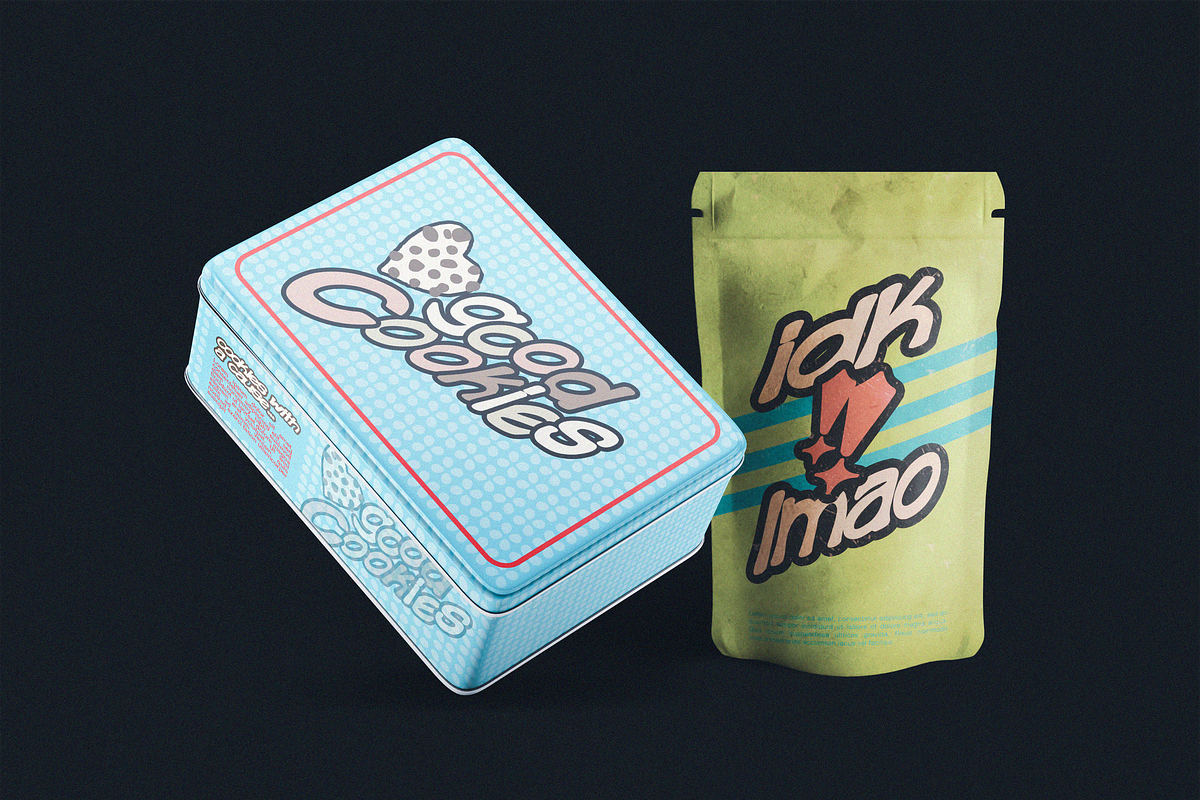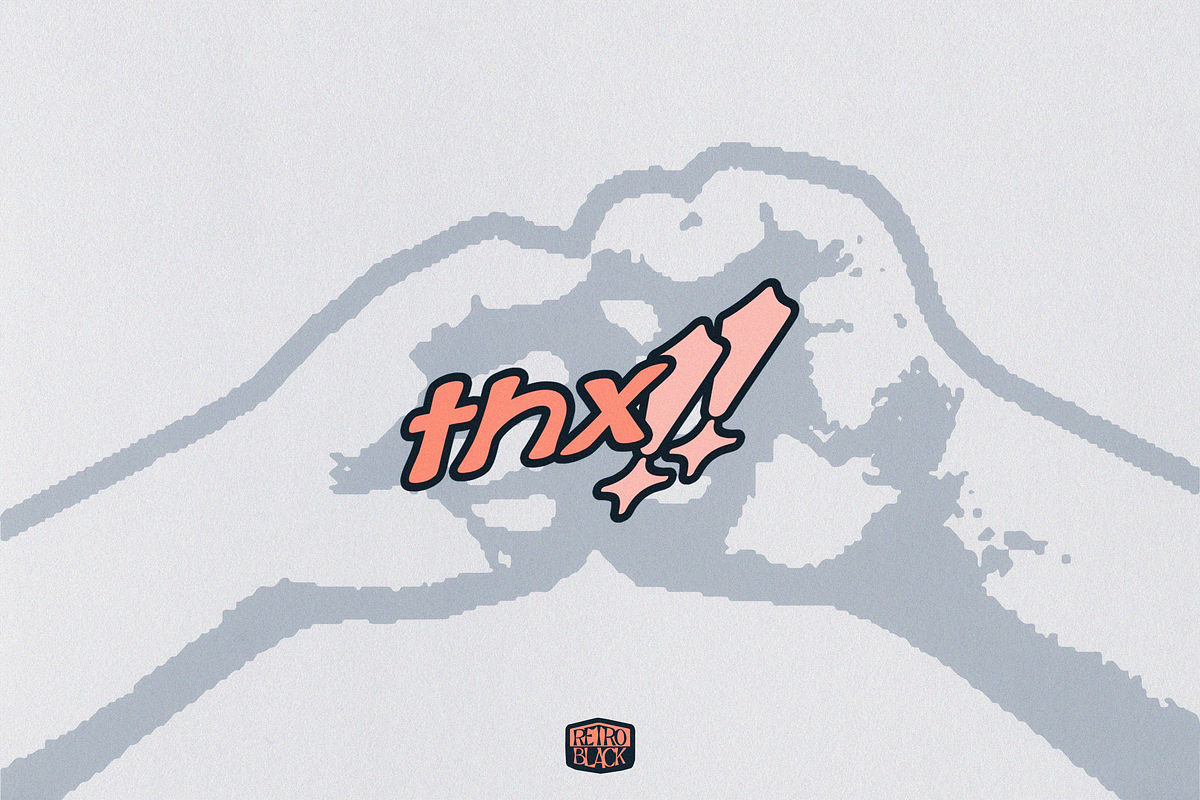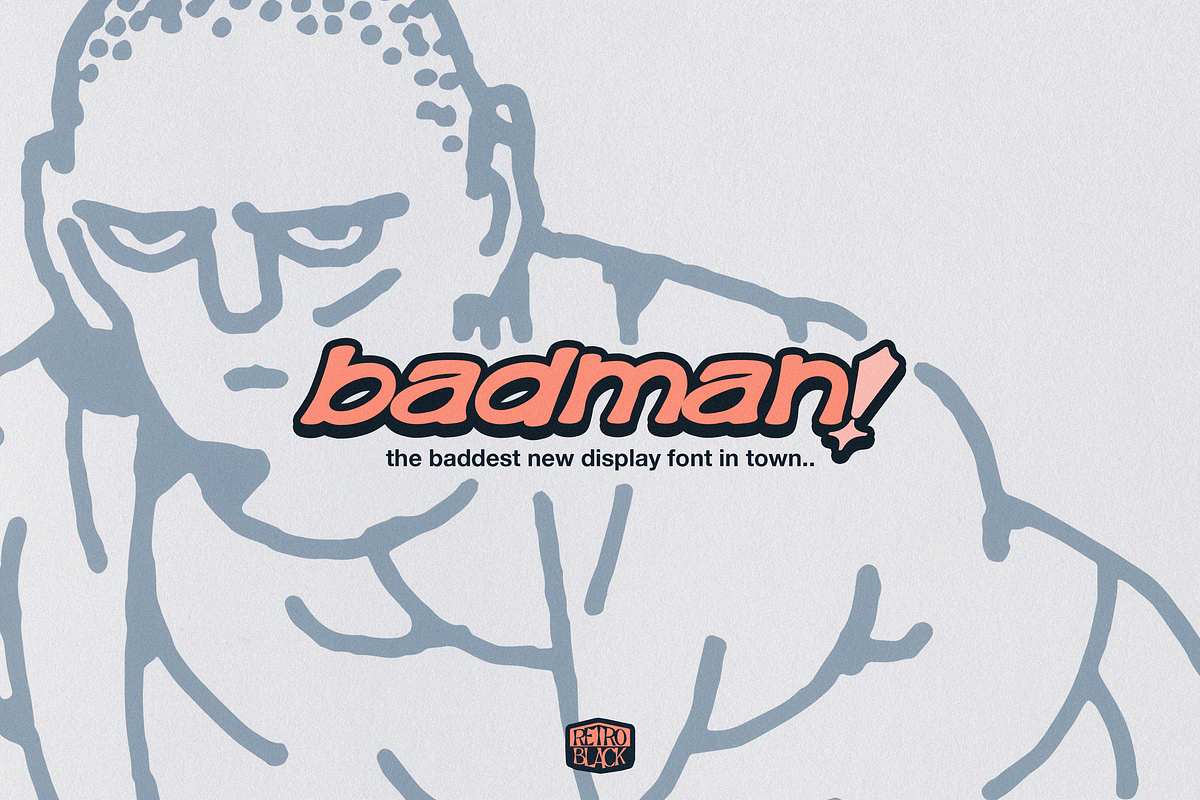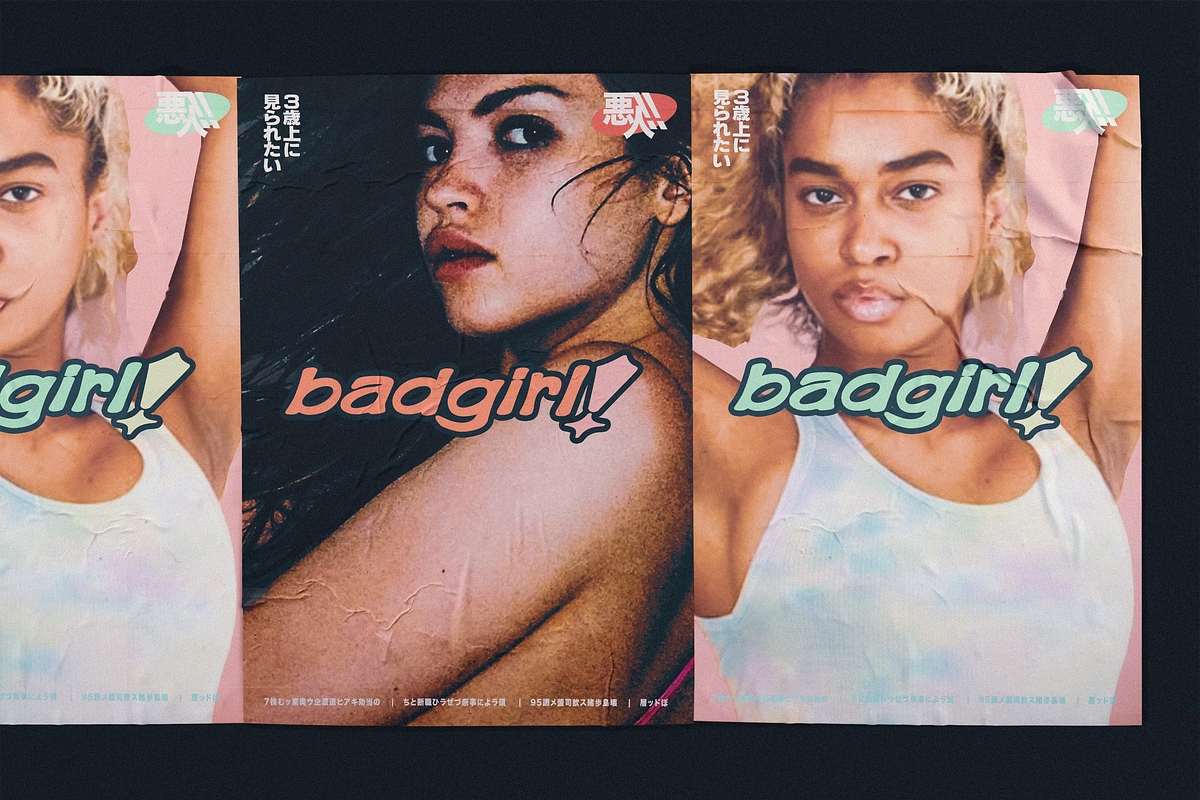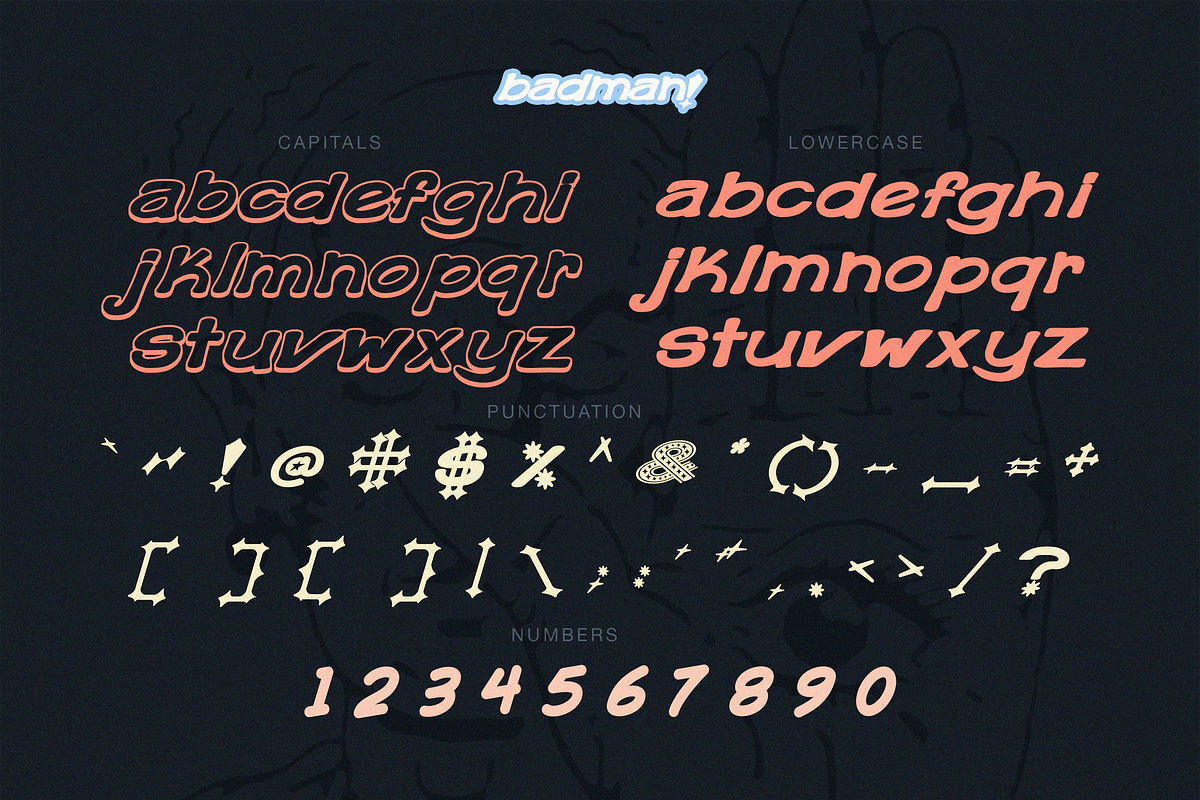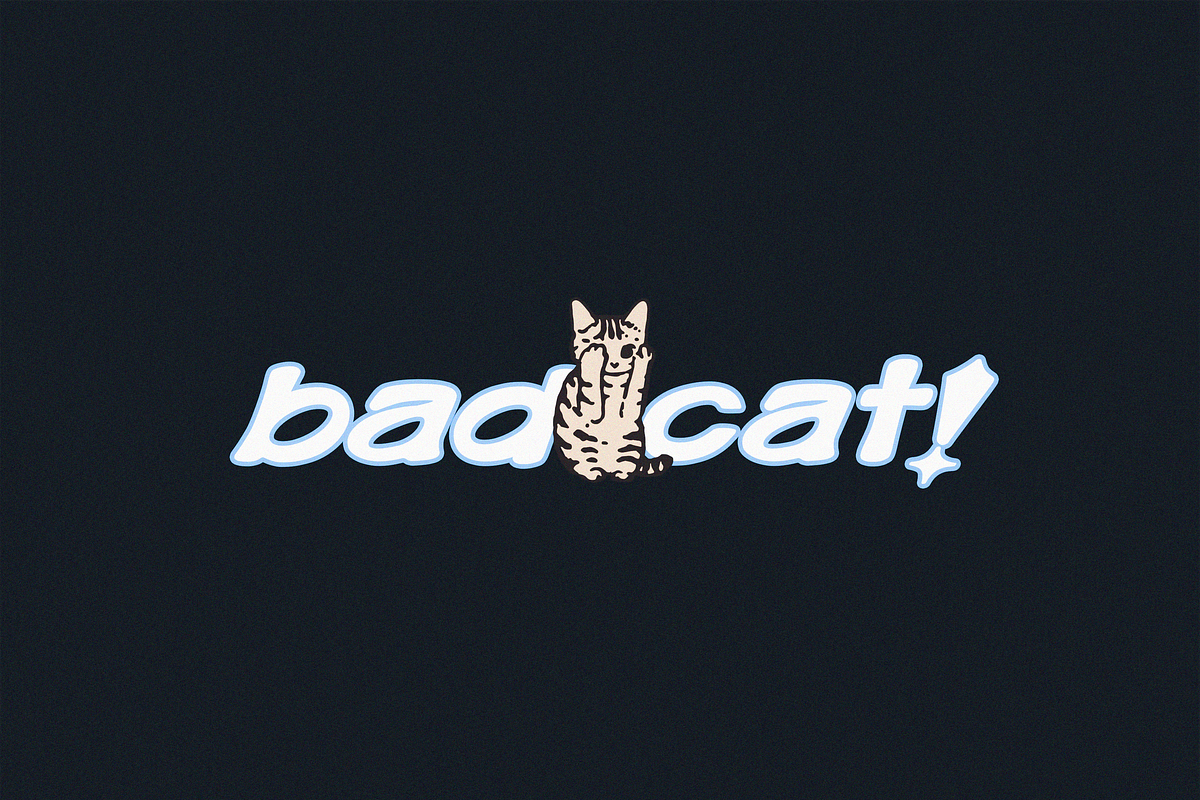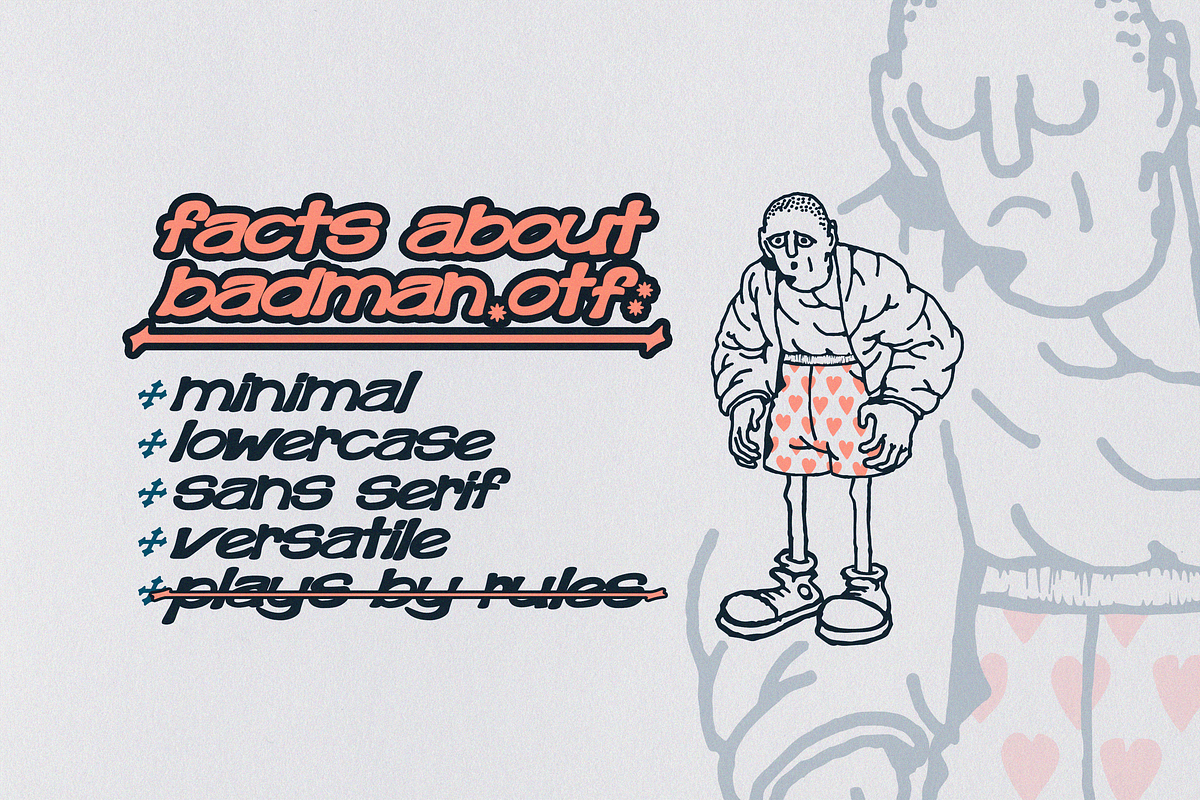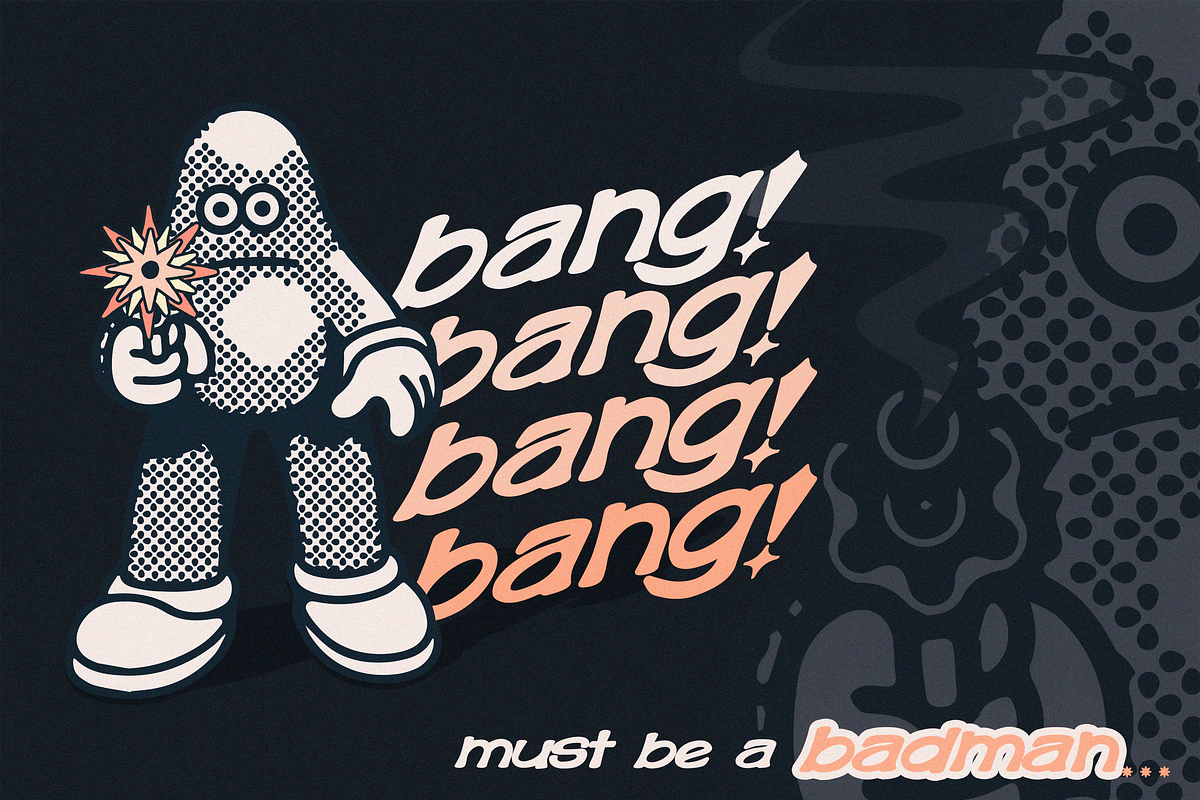
BADMAN - THE BADDEST FONT IN TOWN
-- BAD / BADDER / BADDEST FONT IN TOWN --
BADMAN is a strong, confident, minimal, and extremely adaptable sans serif. Inspired by Japanese magazines from the ’80s, this font came to be. Kerned tight the letters lock up seamlessly, and apart they achieve balance. Low, lowercase, and always italicized, BADMAN is always in a hurry. Its weight makes it a great display font as it will stand apart on minimal or messy backgrounds. Stretch it, pull it, scale it, burn it! BADMAN can handle it. Playing with the proportions BADMAN will maintain its aesthetic and won’t appear stretched (within reason).
- BADMAN CAPS yields unique outlined glyphs
- BADMAN LOWERCASE yields solid glyphs
- BADMAN PUNCTUATION is completely unique to badman and made to rage against the - machine. - A sturdy midground between light and bolds
- BADMAN GLYPHS will be updated frequently whether in design or addition of new glyphs/ligatures.